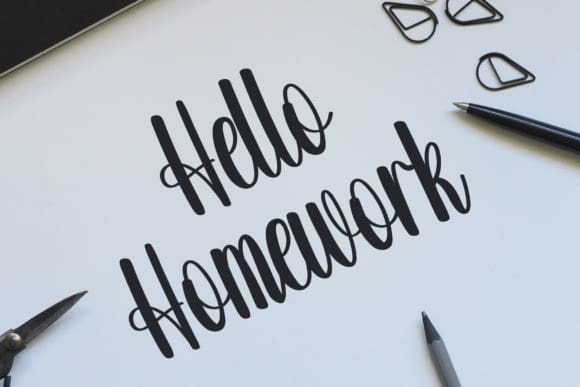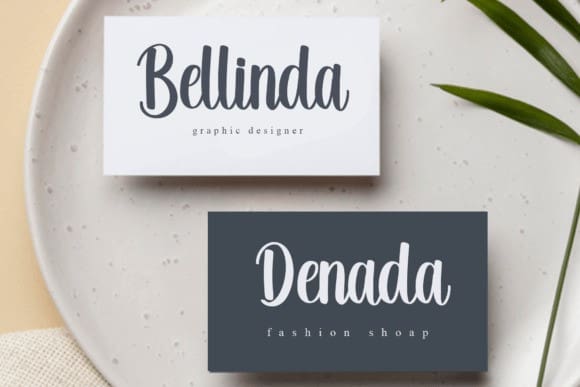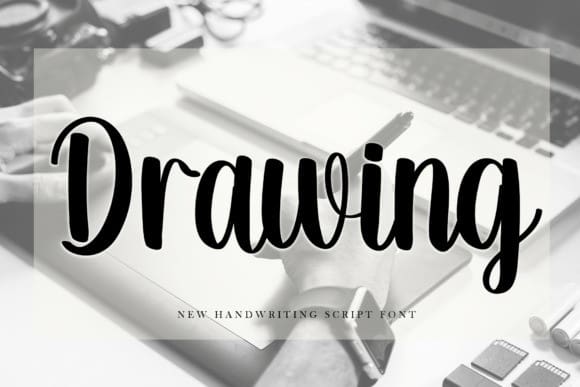
Drawing Script Font
Drawing Script Font, is a fancy handwritten font that will give you extra creative work. This font is suitable for logo design, social media, movie titles, and book titles. Make stunning work with Drawing font.